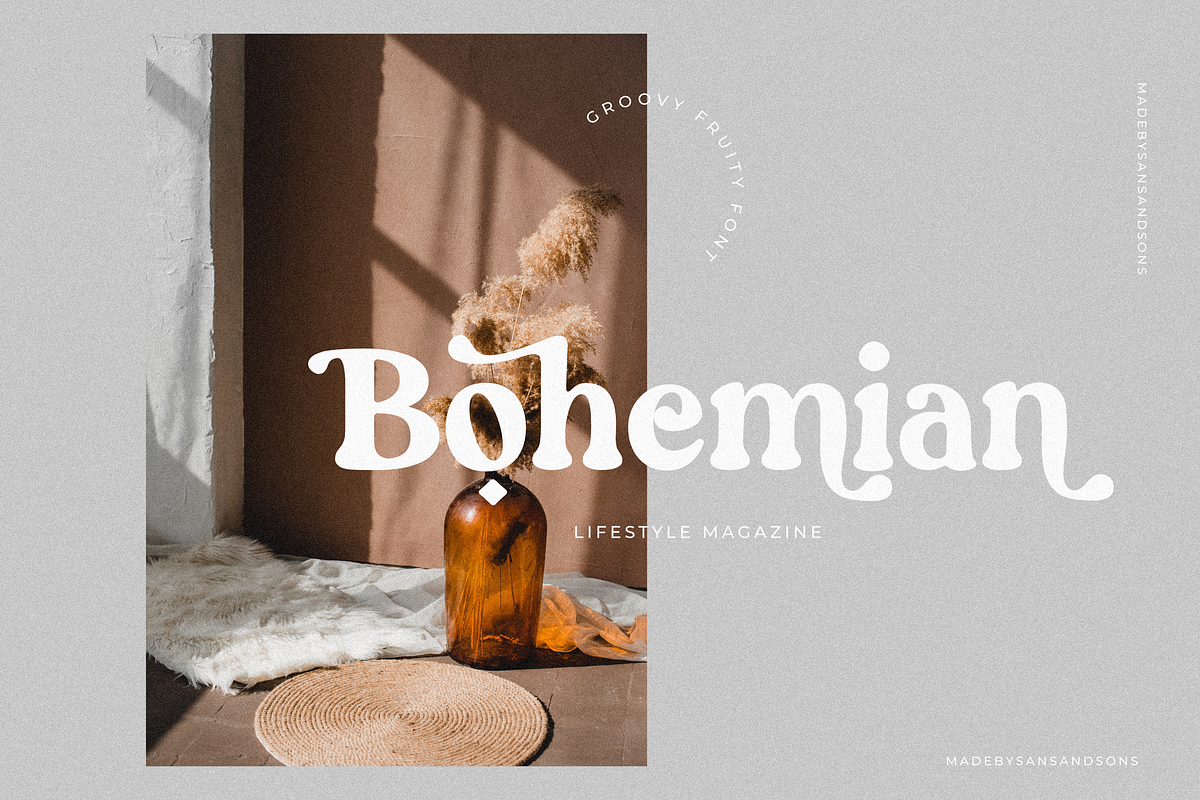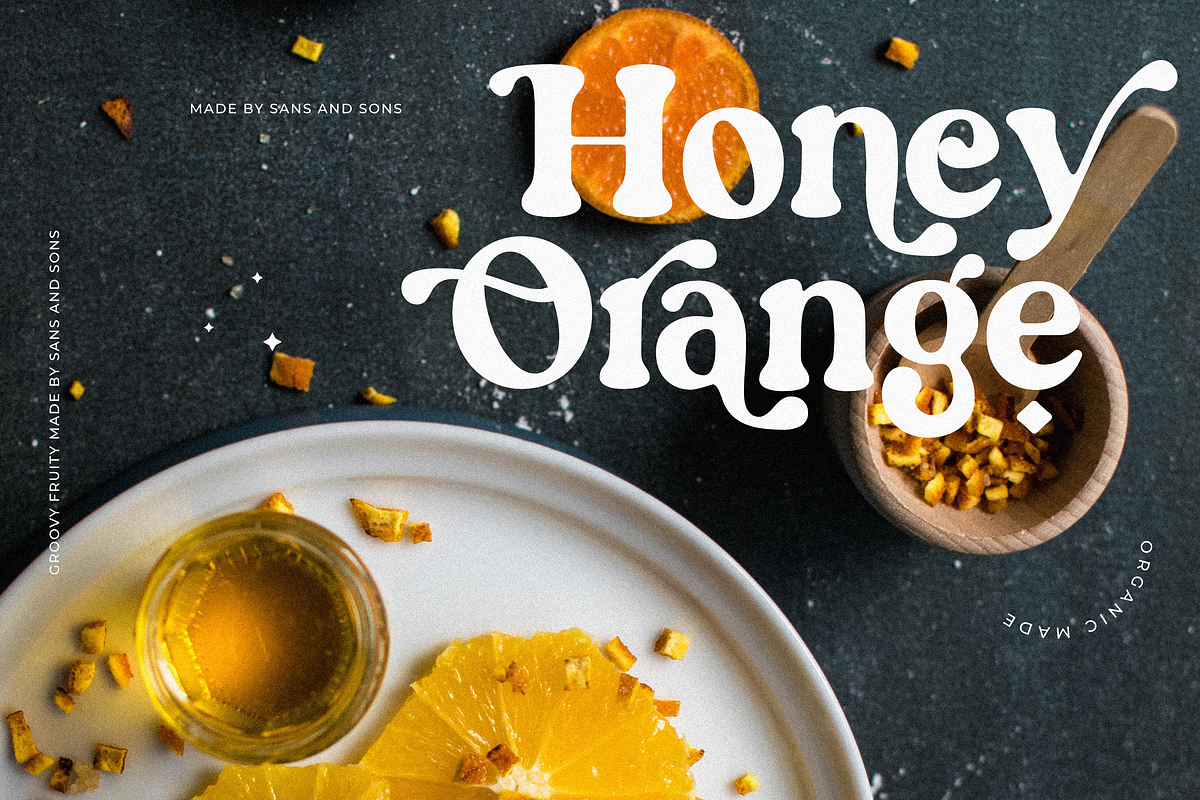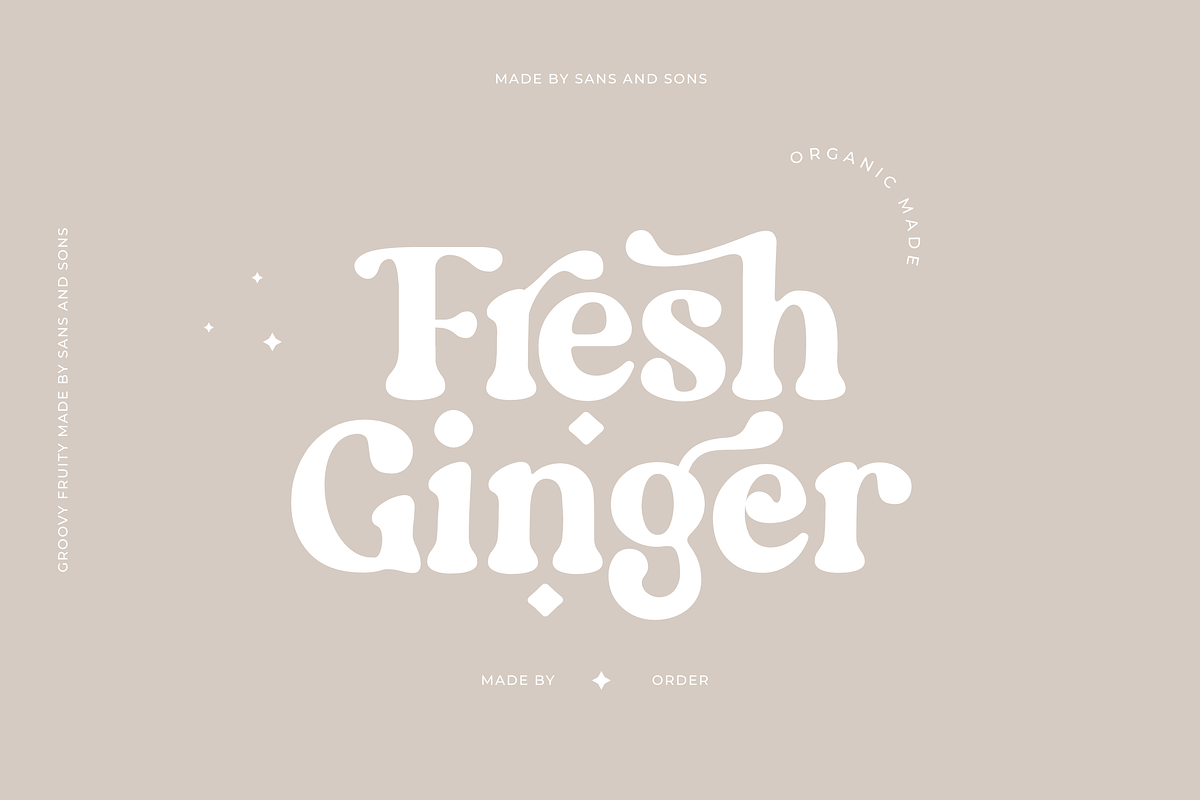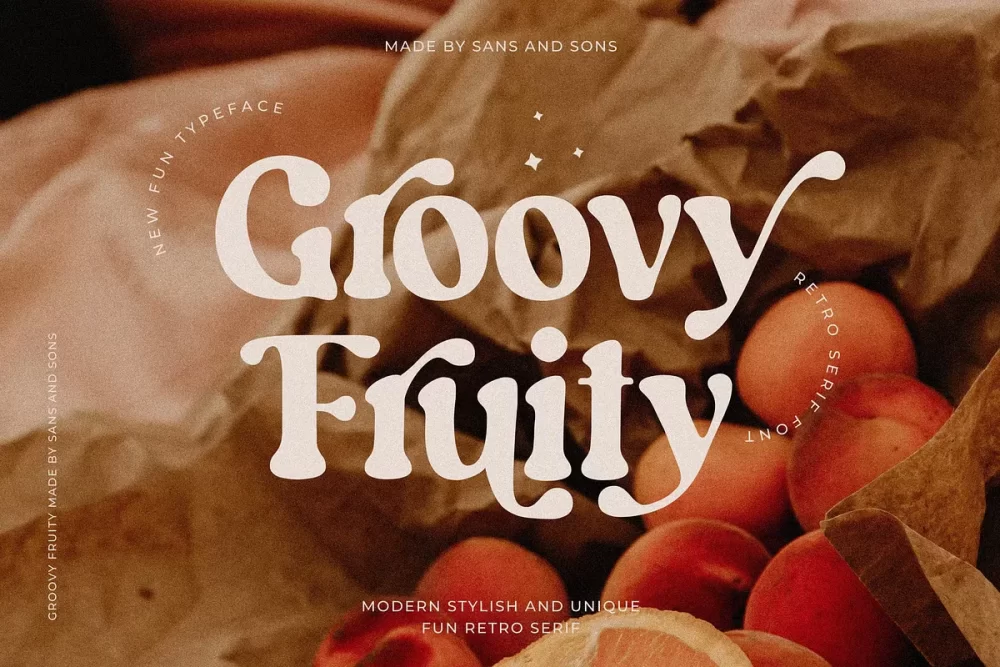
Groovy Fruity Font
Groovy Fruity – Fun Retro Serif Font by Sans and Sons. Introducing our new “Groovy Fruity” Modern Retro with Handdrawn Style is perfect for branding, logos, invitation, master heads, and more.
• Alternates
• Ligatures